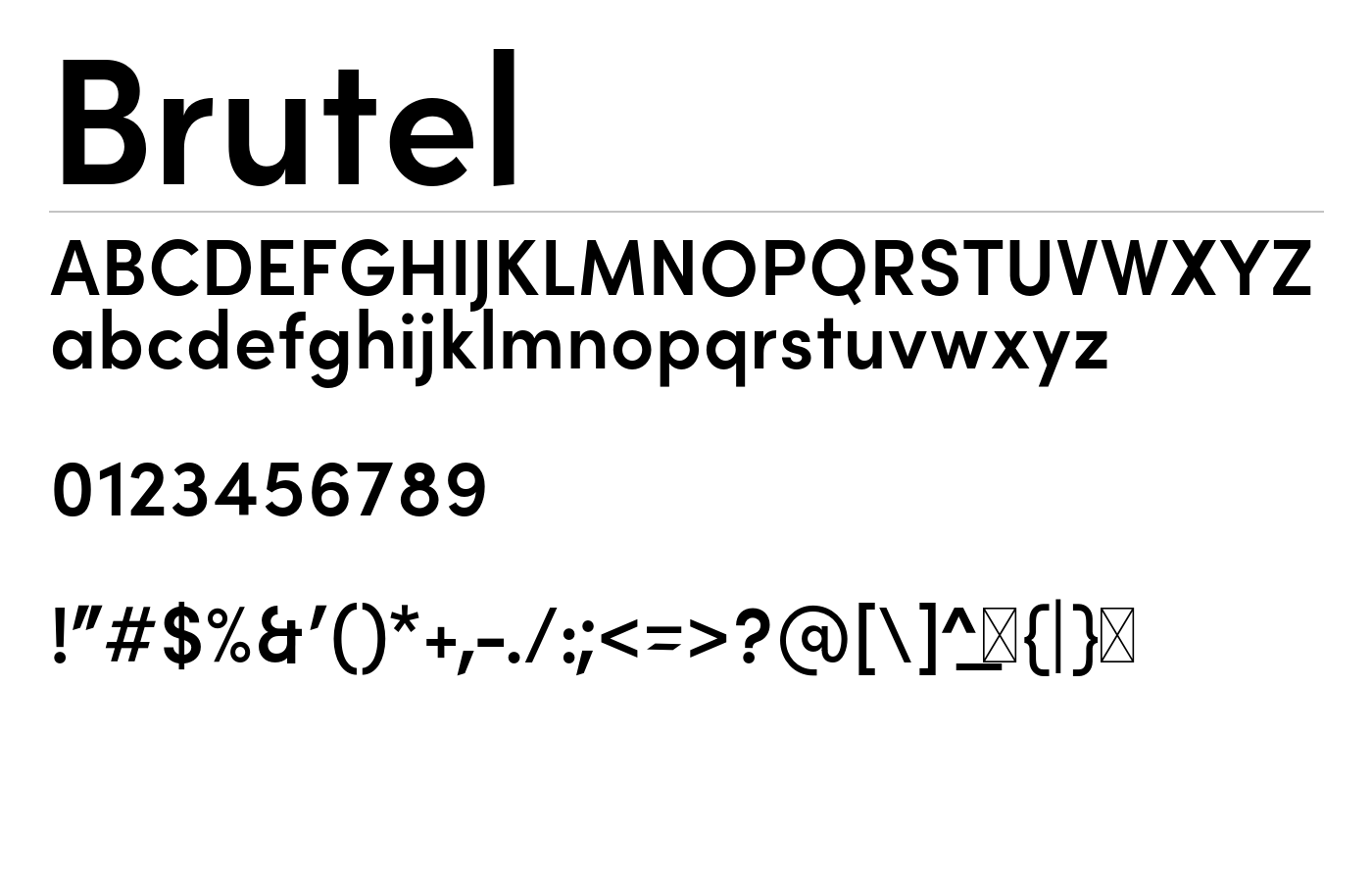
Brutel is a clean and modern sans serif font characterized by its bold weight and balanced proportions, offering a straightforward and approachable appearance. With its medium x-height and uniform stroke width, it ensures excellent readability and versatility, making it ideal for branding, headlines, and digital interfaces. This font conveys a confident, contemporary vibe that works well for businesses and editorial projects seeking a strong yet friendly presence.
Brutel Font
About Brutel Font
| Font family | Brutel Font |
| Designer | iordanis passas |